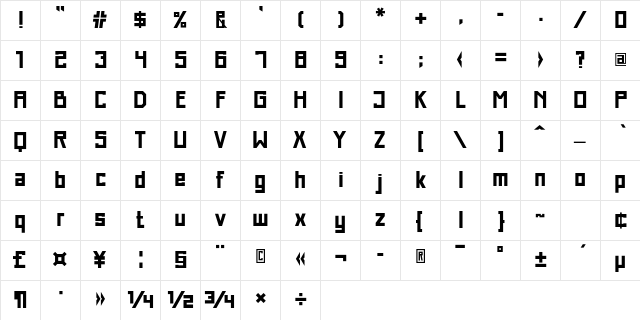
Complete Just Square LT Std Cyrillic Bold glyph index. Displaying only characters natively supported by Just Square LT Std Cyrillic Bold font.
Just Square LT Std Cyrillic is a composed and adaptable typeface that performs quietly and consistently across a wide range of design contexts. Its bold stroke weight gives it real presence on the page.